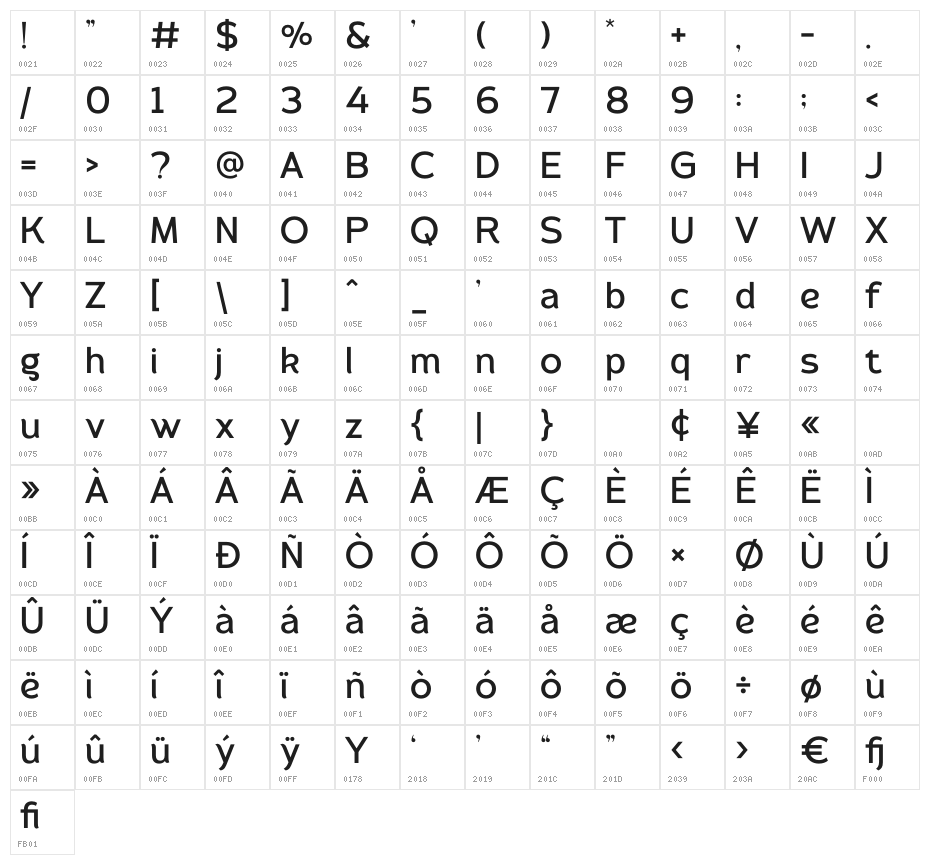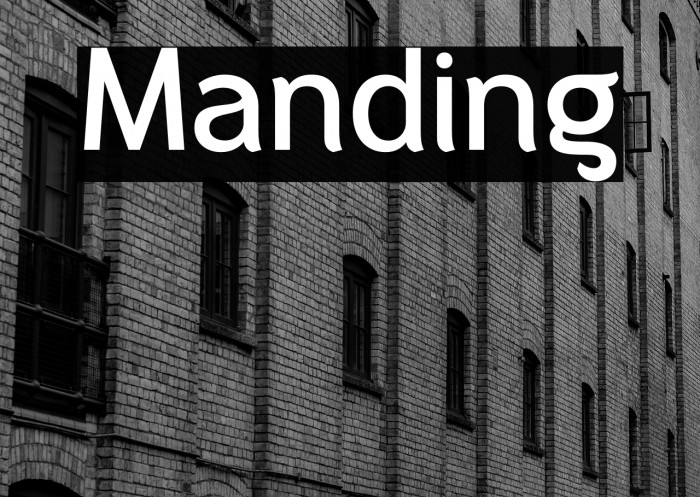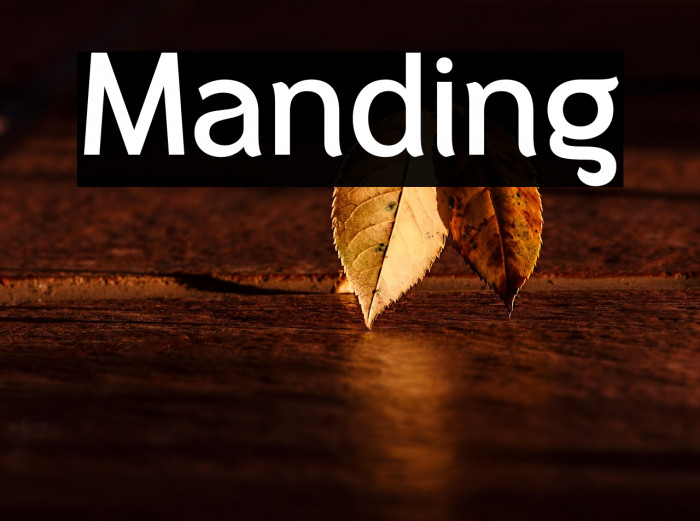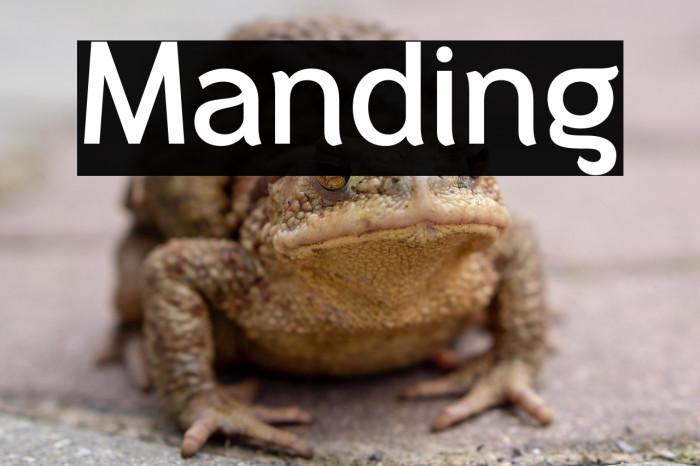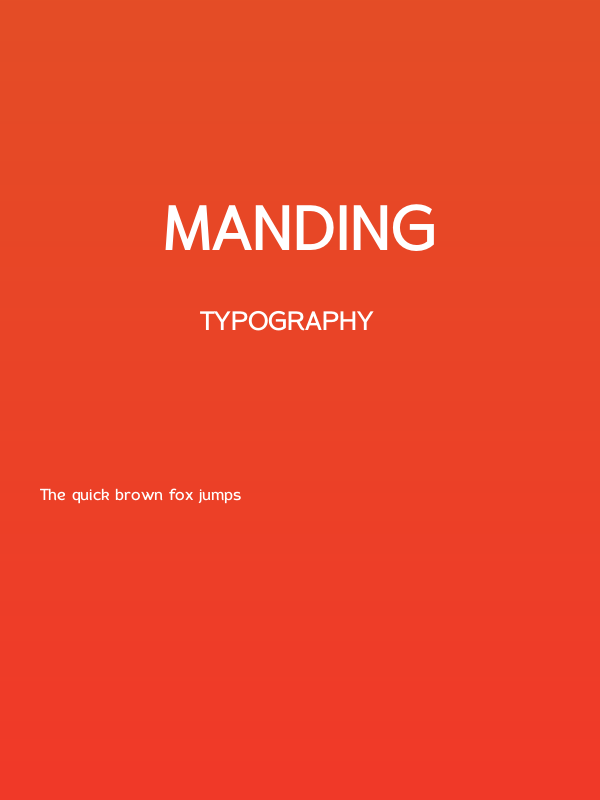
Manding Font
Manding Description
This font features a clean and modern sans-serif design with uniform stroke widths, providing a balanced and professional appearance. The characters are well-proportioned, offering excellent readability across both uppercase and lowercase letters. The numerals and special characters maintain the same clarity, making it versatile for various applications. The overall aesthetic is sleek and contemporary, suitable for digital and print media. Its simplicity and elegance make it a great choice for projects that require a straightforward yet stylish typeface.
| Use Case | Headlines, Body text, Logos |
| Proposed Projects | Ideal for corporate branding, websites, user interfaces, and editorial design. |